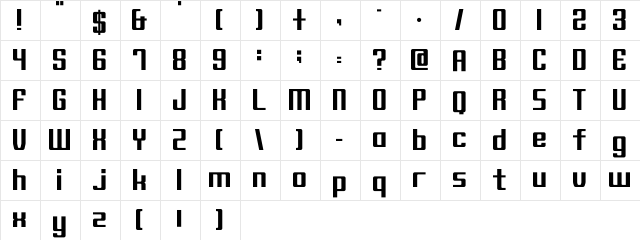
Block C17 Bold
| Designer | OneSevenPointFive |
Design Context for Block C17 Typeface
Block C17 takes a measured approach to typography — its balanced proportions and neutral character make it a reliable workhorse for both digital and print work. Its bold stroke weight gives it real presence on the page.